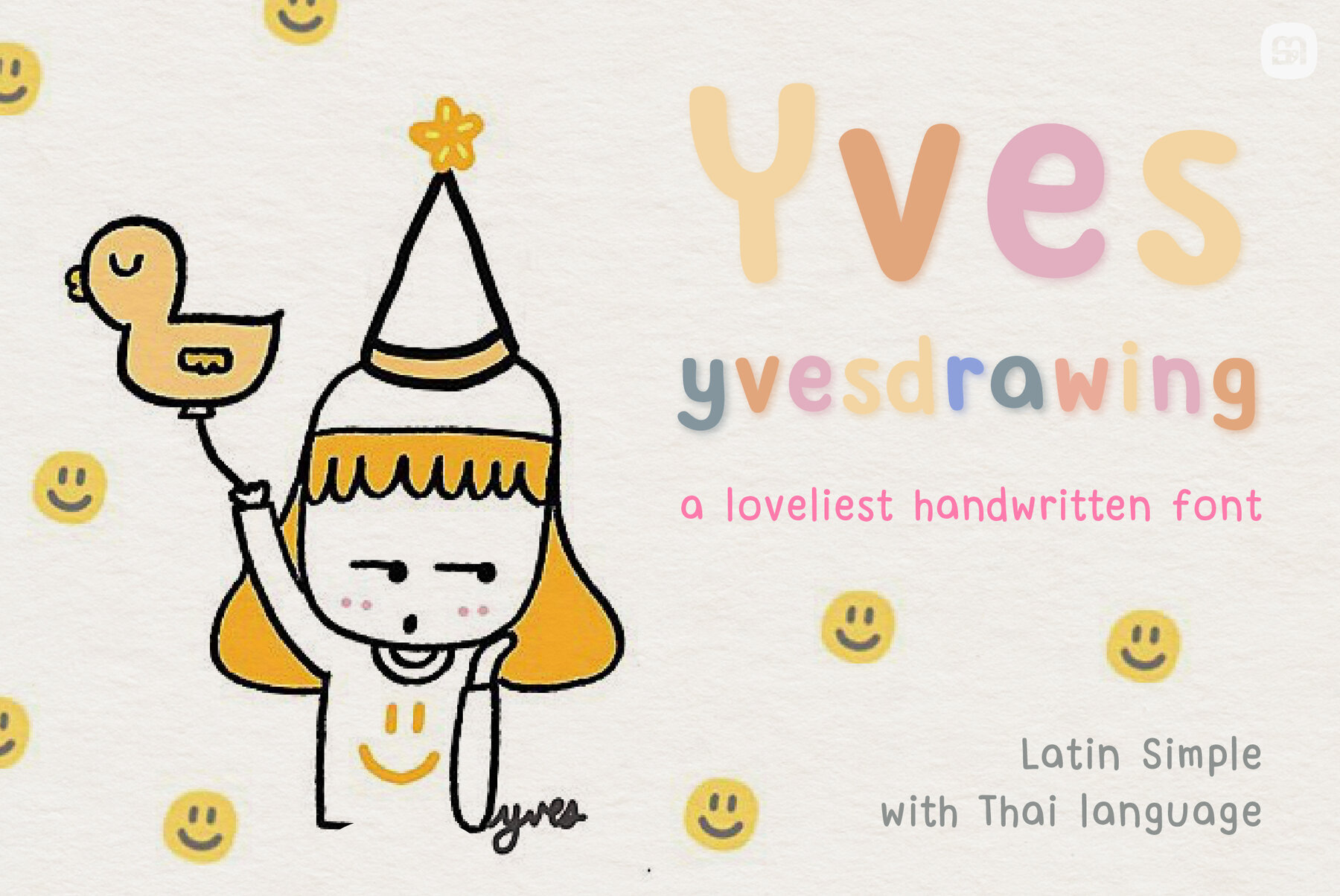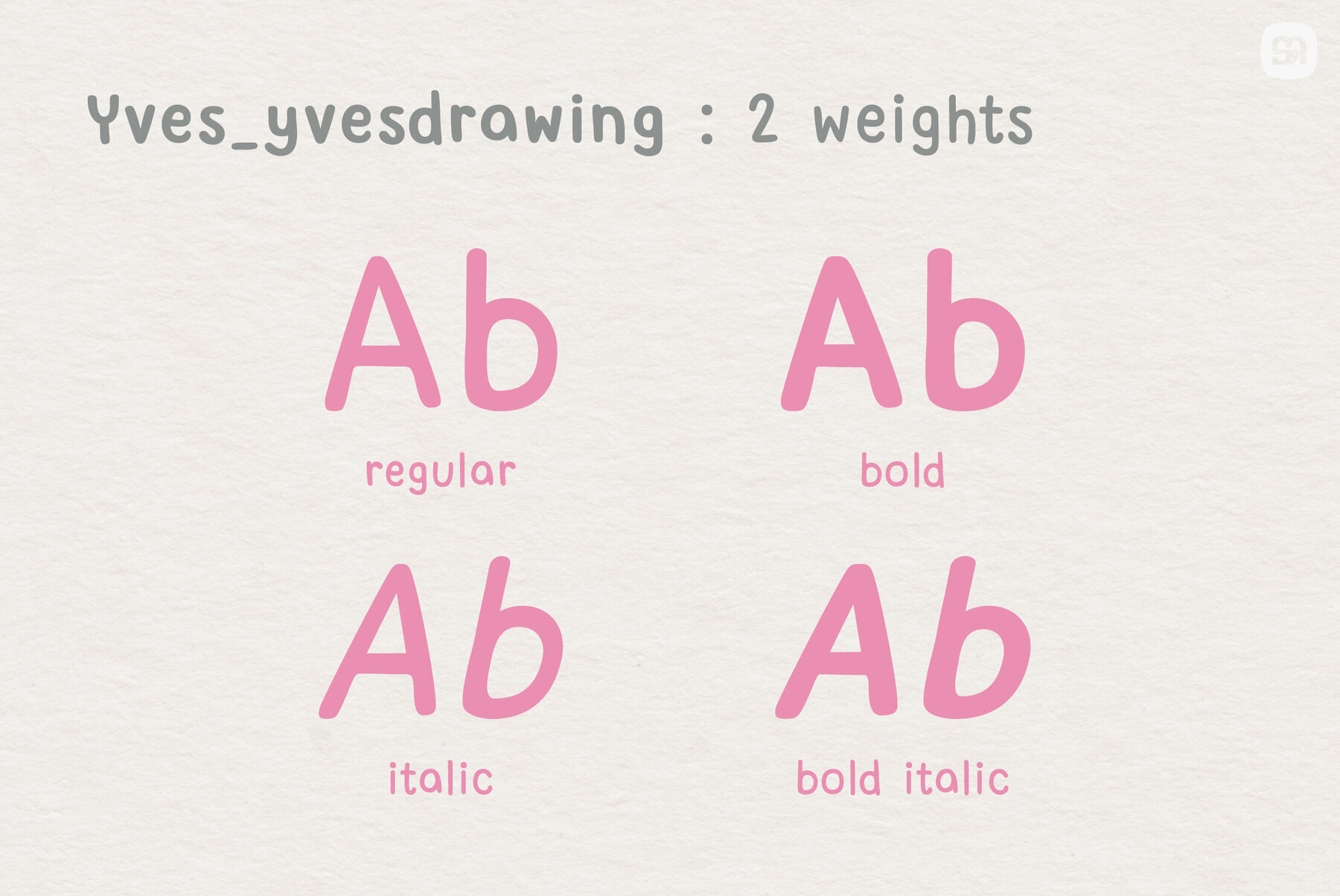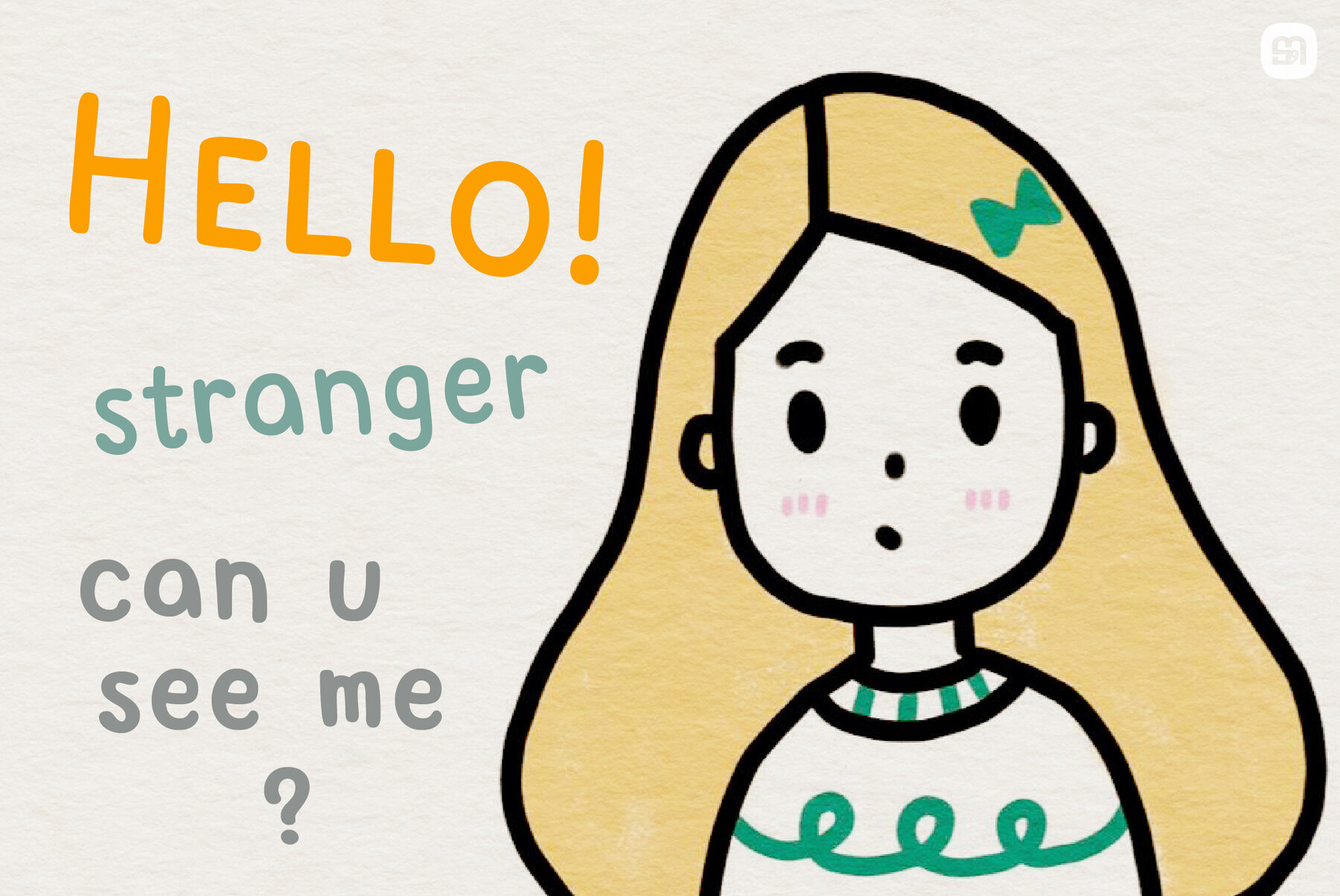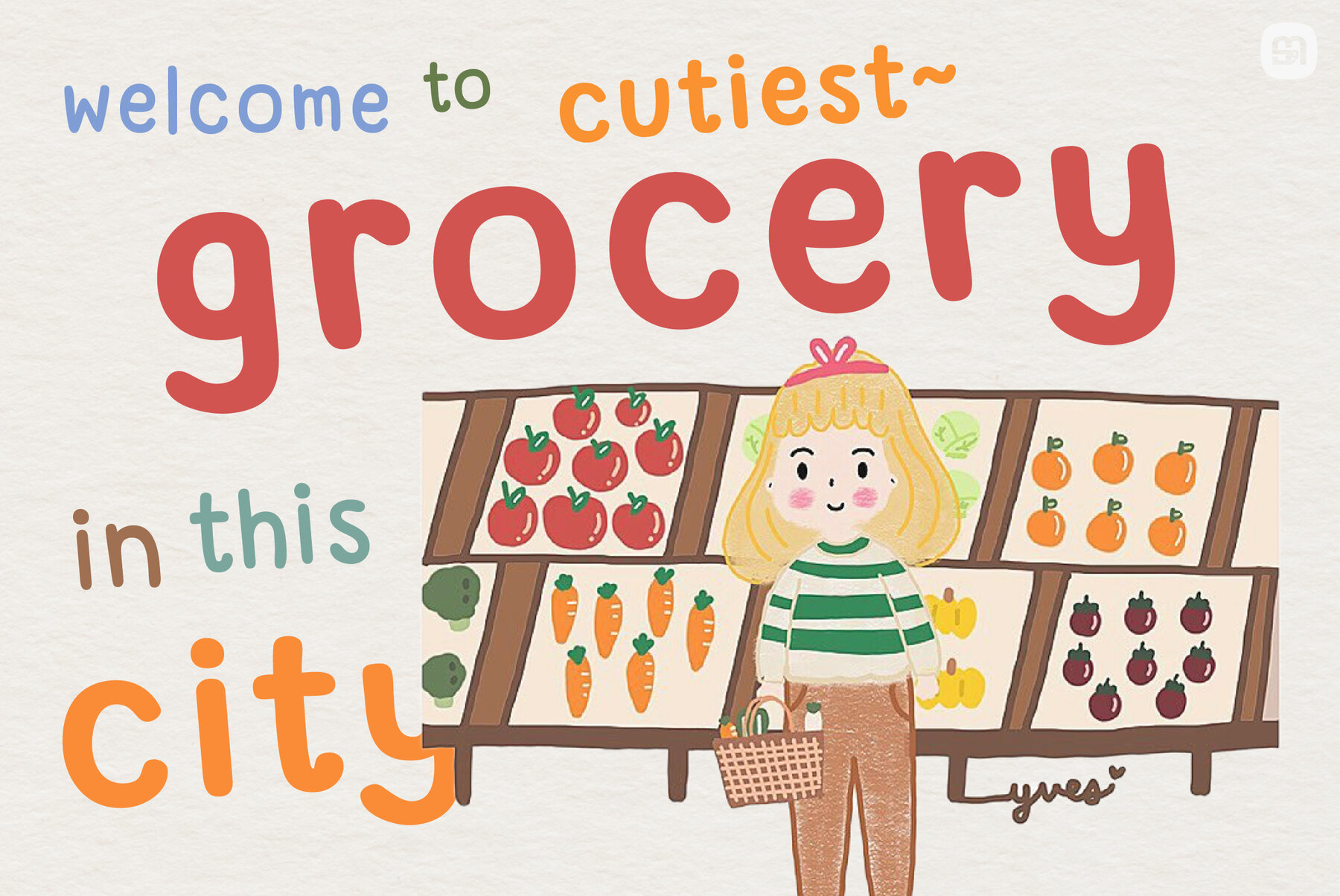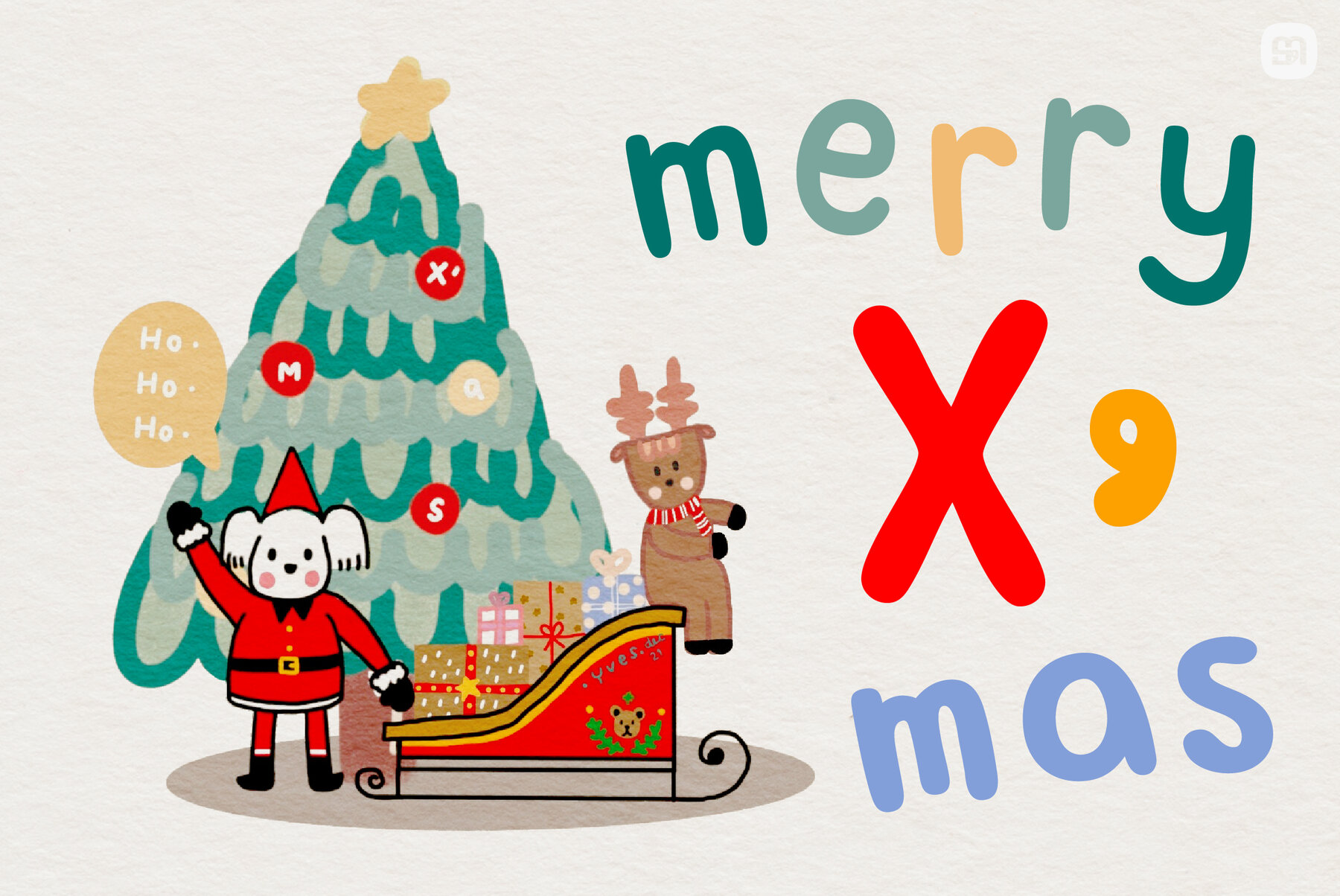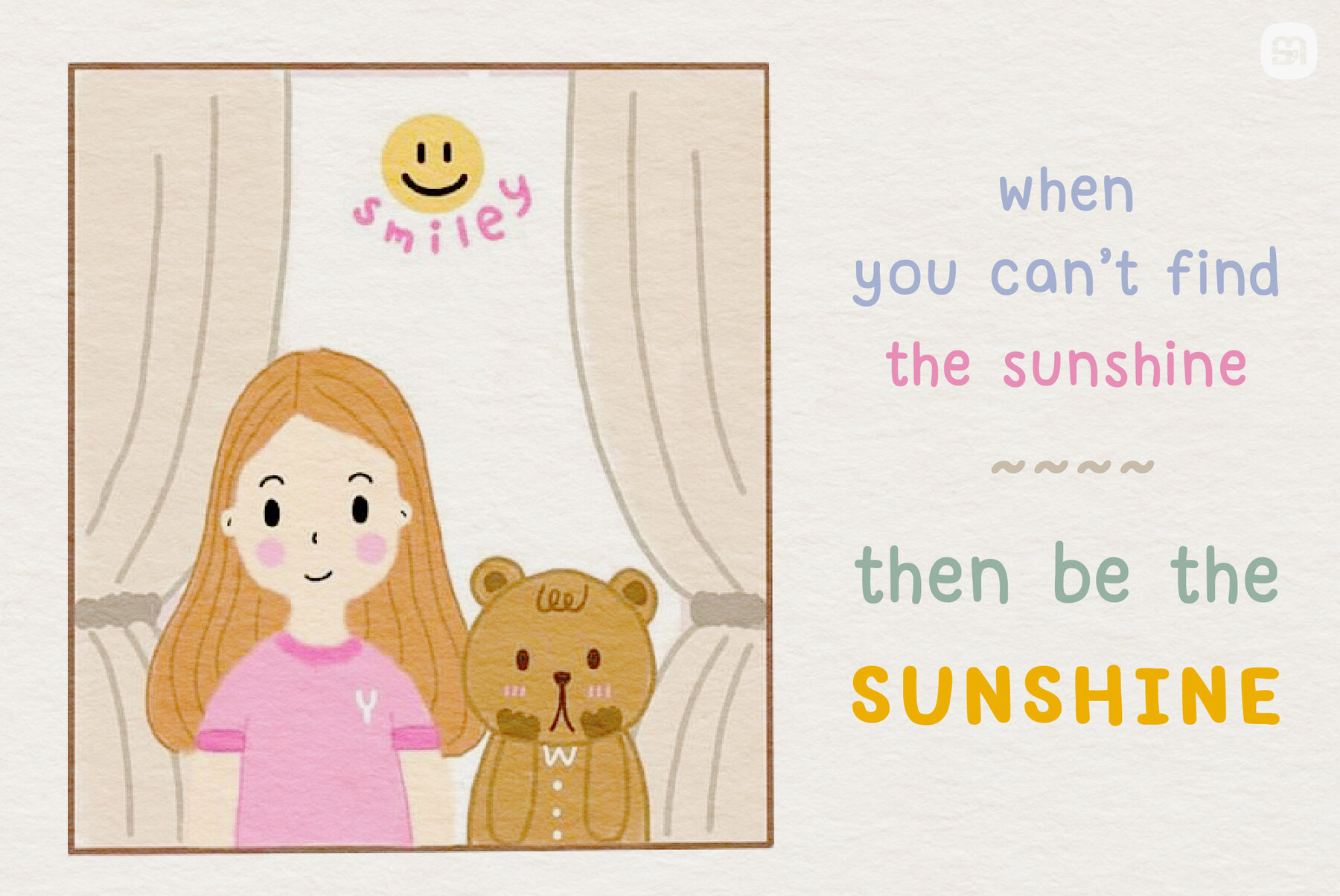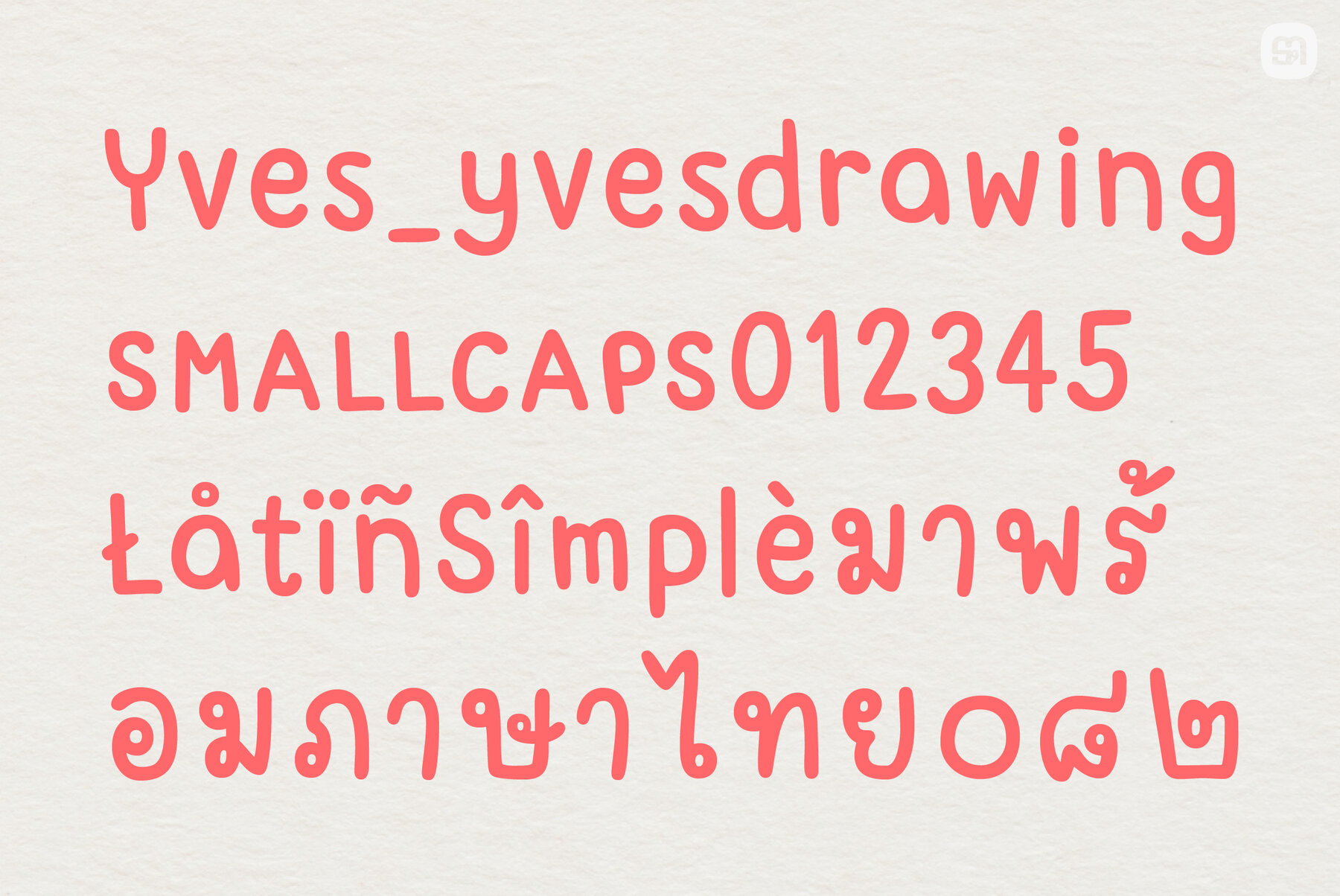
Yves_yvesdrawing Font
The Yves_yvesdrawing font adds a delightful touch to any project. With its playful and cute design, it suits a wide array of topics, offering a refreshing take on traditional typography.Yves_yvesdrawing: Playful Handwritten Font